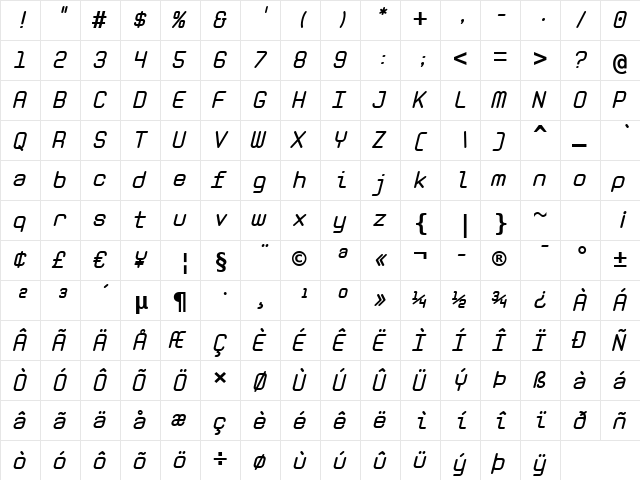
Zolan Mono BTN BoldOblique Font Preview
Design Context for Zolan Mono BTN Typeface
Zolan Mono BTN uses fixed-width spacing throughout, giving it the structured, systematic character associated with coding environments and technical documentation. The slanted form adds forward momentum and visual energy. Its bold stroke weight gives it real presence on the page.
Pro Tip: Pair Zolan Mono BTN with a proportional sans for UI contexts where code-style labels and regular body copy need to coexist.